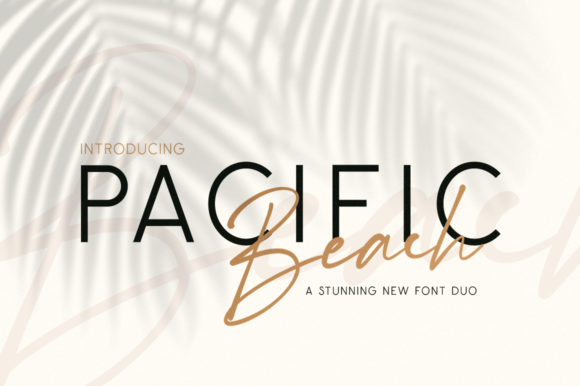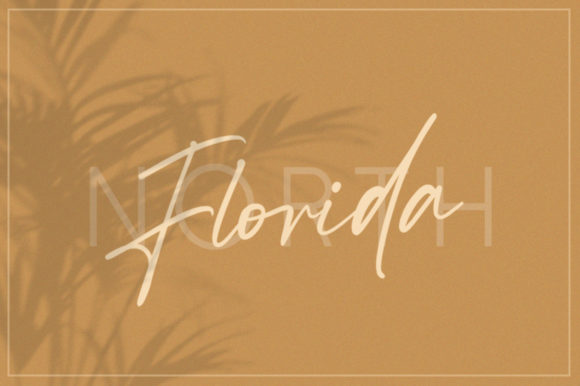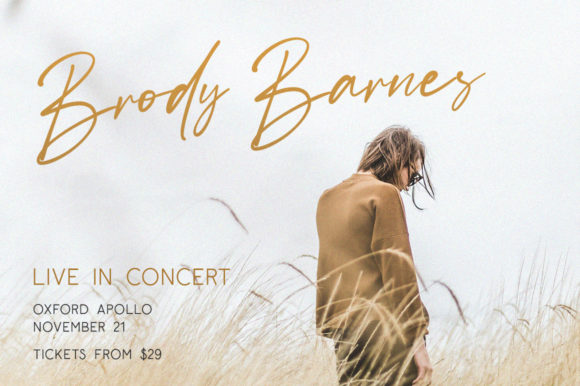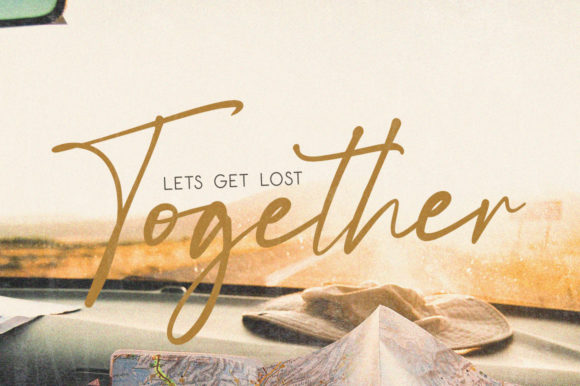
Pacific Beach Font
About the Pacific Beach Font
Experience the unique personality of Pacific Beach Font, a font designed for impact. Pacific Beach duo is a match made in heaven. This is a beautiful combination of timeless elegance and authentic calligraphy. It features an incredibly classic style, while still keeping a friendly feel. This handwritten font is the perfect fit for making original and outstanding designs.
Pacific Beach excels in branding projects requiring a touch of elegant informality—think boutique hotels, artisanal food brands, or wedding stationery. Its friendly yet classic style also works well for short headlines and impactful quotes in marketing materials. However, avoid using it for large blocks of body text or UI elements; its calligraphic nature can hinder readability in extended passages.
Pairing Pacific Beach with a clean sans-serif like Lato or Open Sans for body text creates a strong visual hierarchy. For a more playful feel, consider pairing it with a geometric sans-serif such as Montserrat. A classic serif like Garamond would offer a sophisticated contrast, enhancing Pacific Beach’s inherent elegance.
The overall personality of Pacific Beach is sophisticated yet approachable; it conveys a sense of timeless quality with a warm, friendly undertone. This makes it ideal for brands seeking to project both trustworthiness and approachability.
Pacific Beach Font Usage Examples
Pacific Beach Font Example